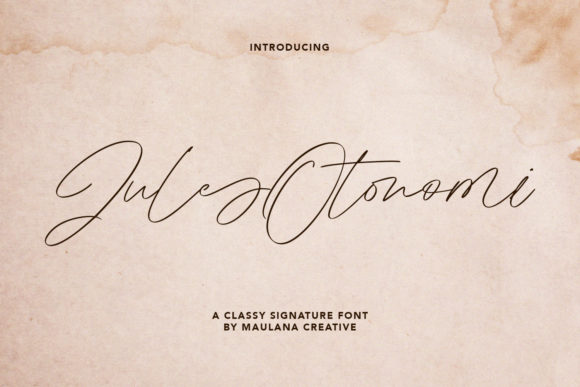
Unveil the Elegance: Introducing Jules Otonomi, the Quintessential Script Font for Jewelry
In a world where beauty captivates and charm enchants, there lies a font that embodies grace and refinement: Jules Otonomi. This exquisite script font, meticulously crafted by Maulana Creative, is a masterpiece designed to elevate your designs and leave an indelible mark on your audience.
Step into a realm of sophistication as you explore the flowing curves, delicate strokes, and timeless elegance of Jules Otonomi. Inspired by the allure of fine jewelry, this font radiates an aura of luxury and grace, making it the perfect choice for showcasing your precious creations.
Whether you're a seasoned designer or a creative enthusiast, Jules Otonomi promises to transform your words into captivating works of art. Its versatility extends from branding and packaging to logos and marketing materials, ensuring that your message shines with distinction.
With Jules Otonomi, you can:
- Elevate your jewelry designs with a font that captures the essence of timeless elegance.
- Create captivating logos that exude sophistication and charm.
- Design packaging that adds a touch of luxury to your products.
- Craft marketing materials that leave a lasting impression on your audience.
- Express your creativity with a font that brings your vision to life.